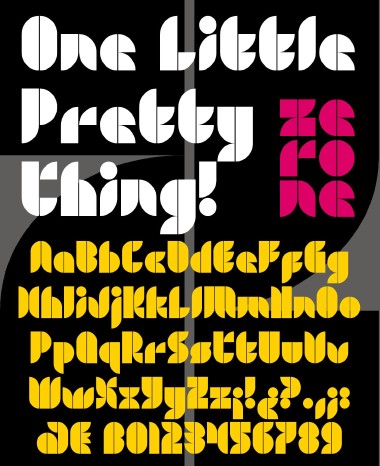
zerone eYe/FS
Another little one (2 x 3 bricks).
Very stylish. I'm particularly smitten with the l/c n.
Thanks, maestro. This is only a little "tour de force" in the 2x3 bricks font world.